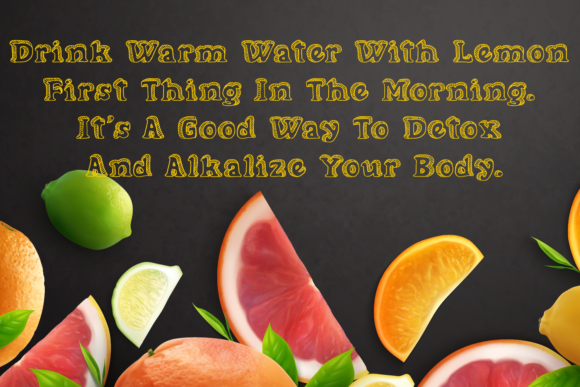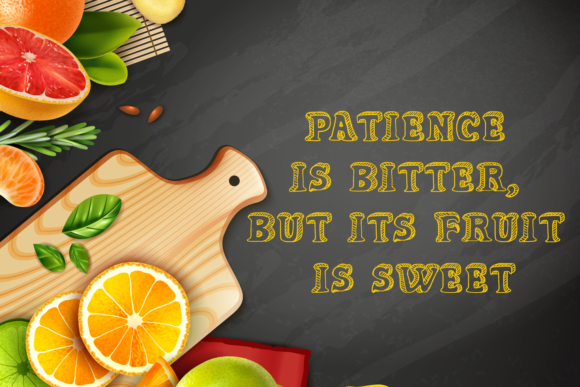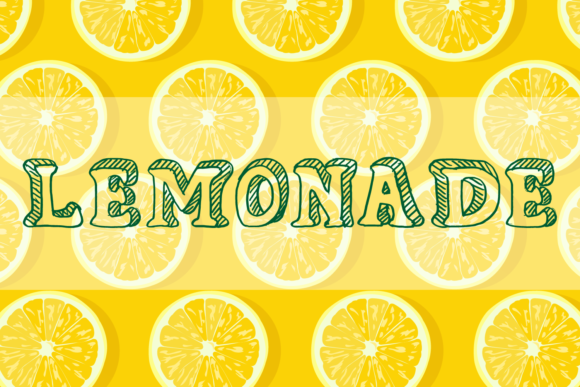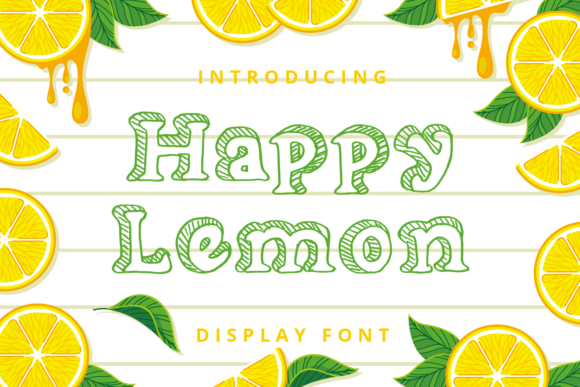
Introduction to Happy Lemon Font
Happy Lemon is a cute and cartoon like display font.
It embodies playfulness and authenticity, and is perfect for children themed designs, especially when combined with bright colors .